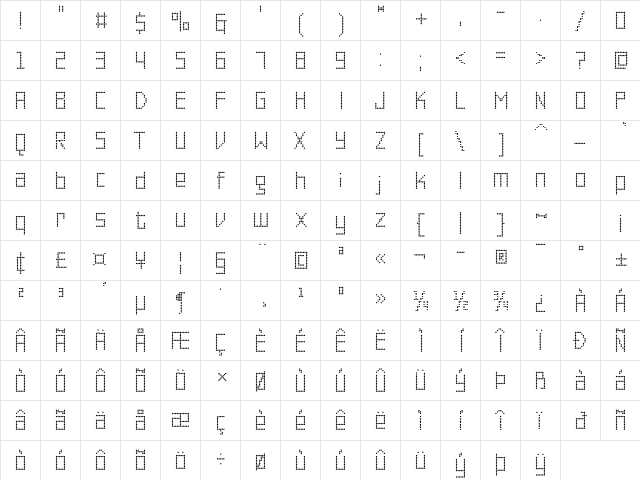
PF Online One Pro Single Regular
| Designer | Panos Vassiliou |
Design Context for PF Online One Pro Single Typeface
PF Online One Pro Single is a composed and adaptable typeface that performs quietly and consistently across a wide range of design contexts.